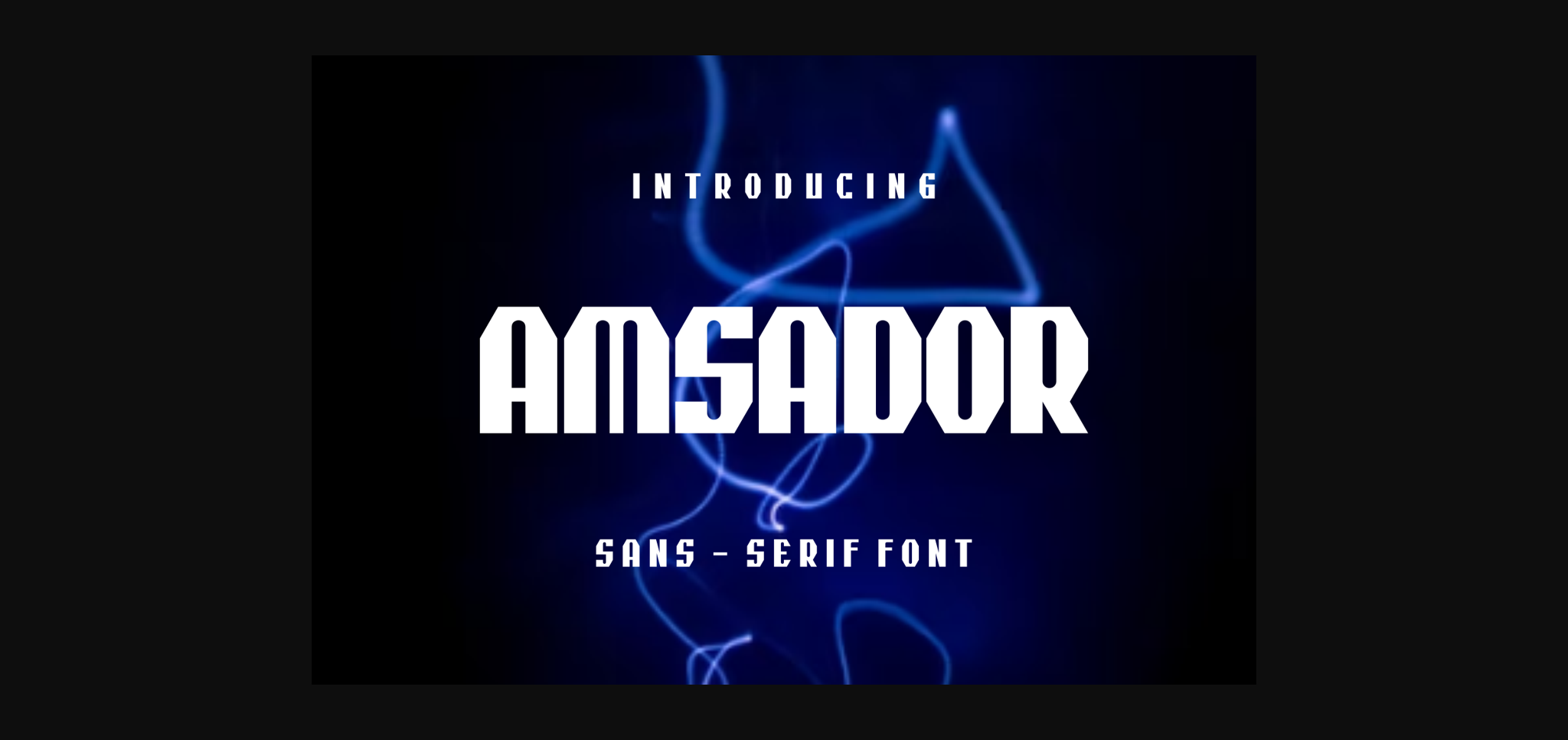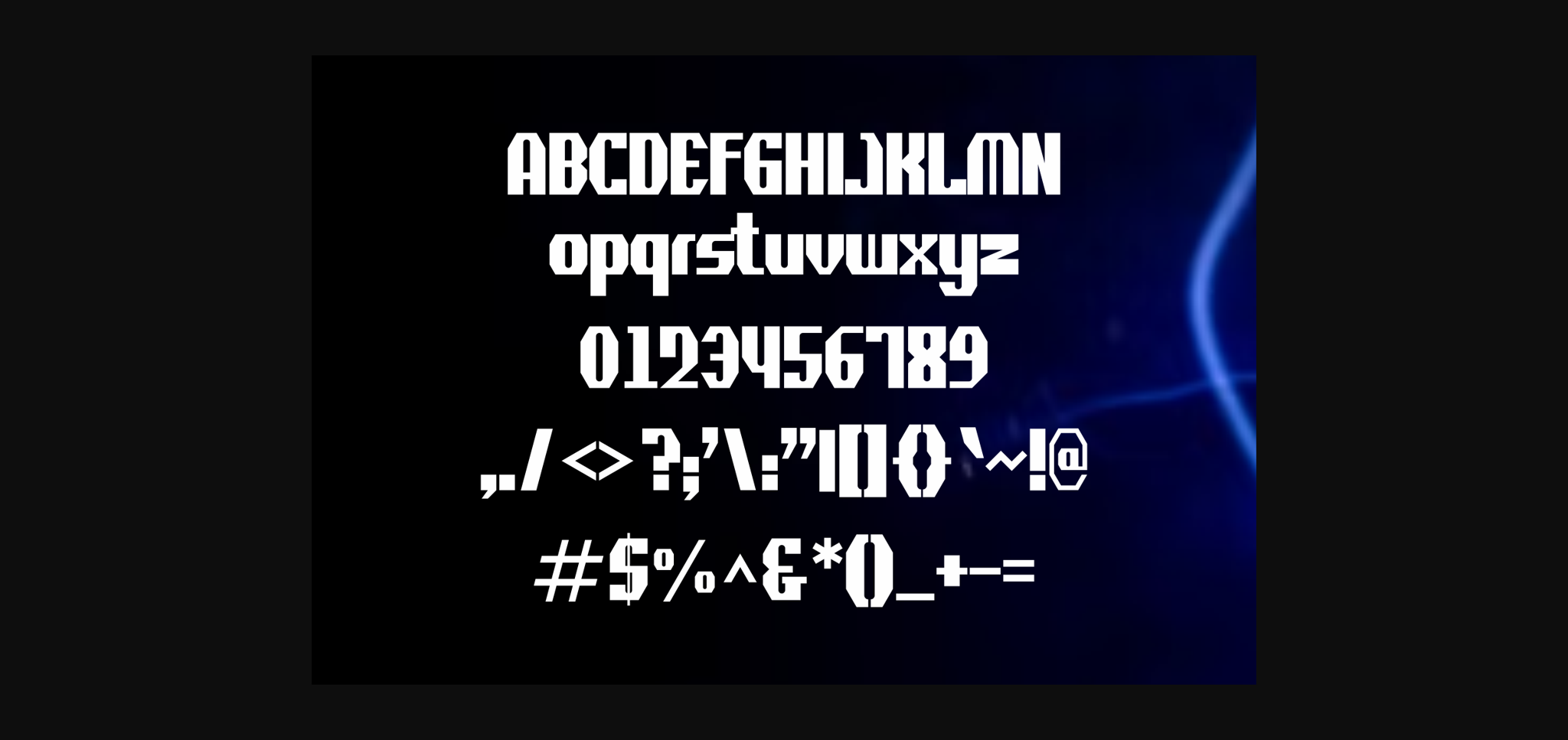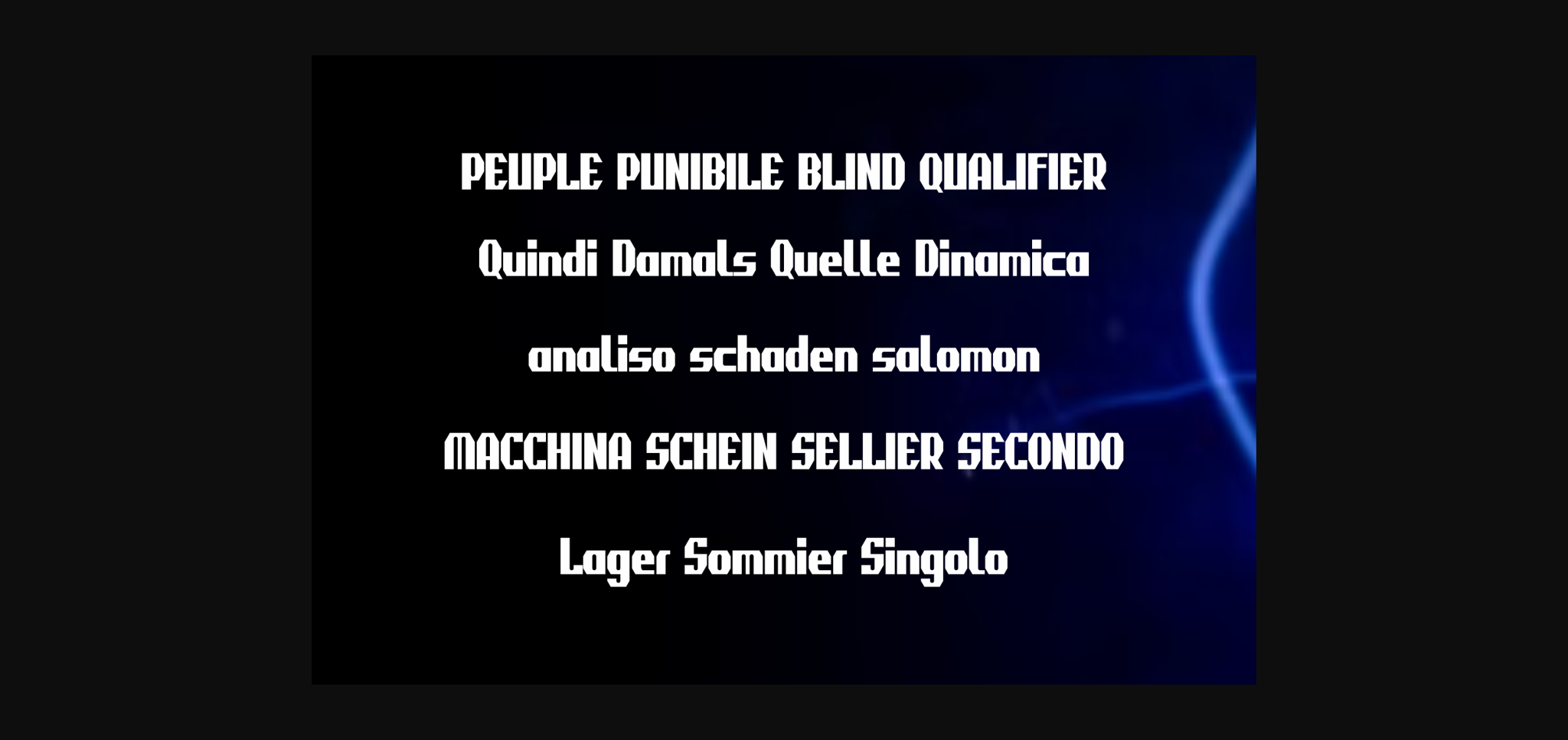
HomeSans Serif FontsAmsador Font Sans Serif Fonts Amsador Font FacebookXPinterestWhatsApp 1 of 5 ... Amsador Font Poster 2... Amsador Font Poster 3... Amsador Font Poster 4... Amsador Font Poster 5... About Amsador Font Amsador is a cool and unique sans serif font. No matter the topic, this font will be an incredible asset to your fonts’ library, as it has the potential to elevate any creation. DOWNLOAD NOW People also explored Alpha Fox Rusty Screw Font Moodbooster Font Alpha Step Cannabis Font Amsterdam Signature Pandawa Font Blackstone Font Dakinrocks Font 276 0 TagsAmsadorAmsador Font Previous articleAnsahas FontNext articleAkvocar Font LEAVE A REPLY Cancel reply Comment: Please enter your comment! Name:* Please enter your name here Email:* You have entered an incorrect email address! Please enter your email address here Website: Save my name, email, and website in this browser for the next time I comment. Personal Use Free Loving You Personal Use Free Read more about this font Eits Personal Use Free Read more about this font Hello Ketta Personal Use Free Read more about this font Welcome Creative Personal Use Free Read more about this font BLOG How to Install and Use Fonts on Windows, macOS, and Web Projects How to Install and Use Fonts on Windows, macOS, and Web Projects Fonts are a crucial part of design and branding. Whether you’re designing a... Elegant Wedding Invitation Fonts – Handwritten & Script Fonts Using Fonts in Digital Marketing: Tips to Strengthen Your Brand Identity Best Fonts for YouTube Videos: Make Your Thumbnails Stand Out